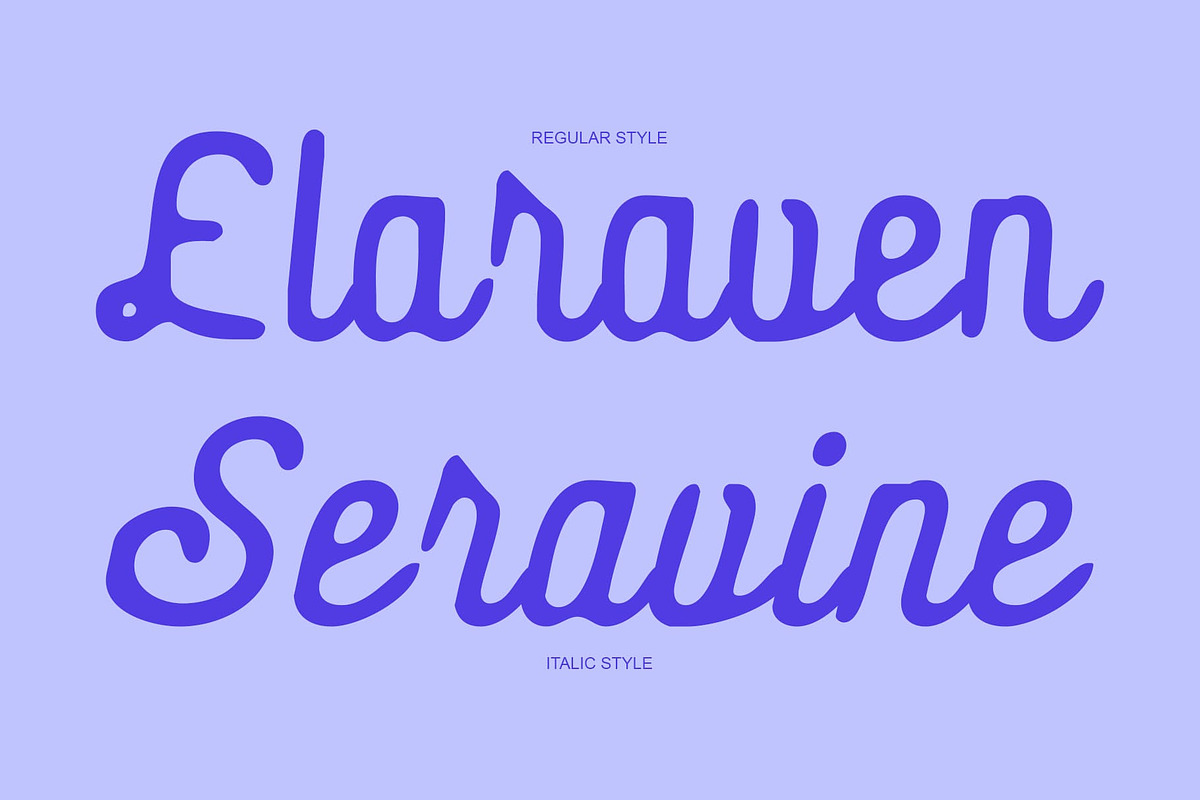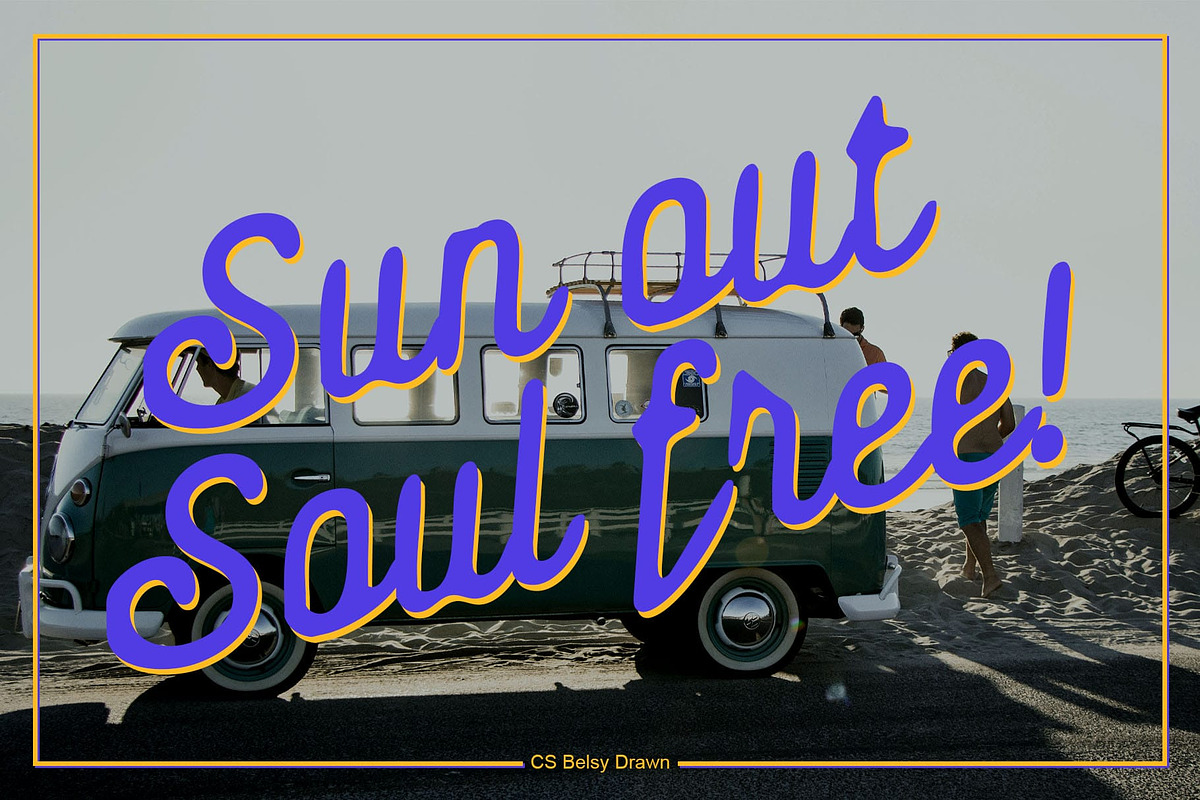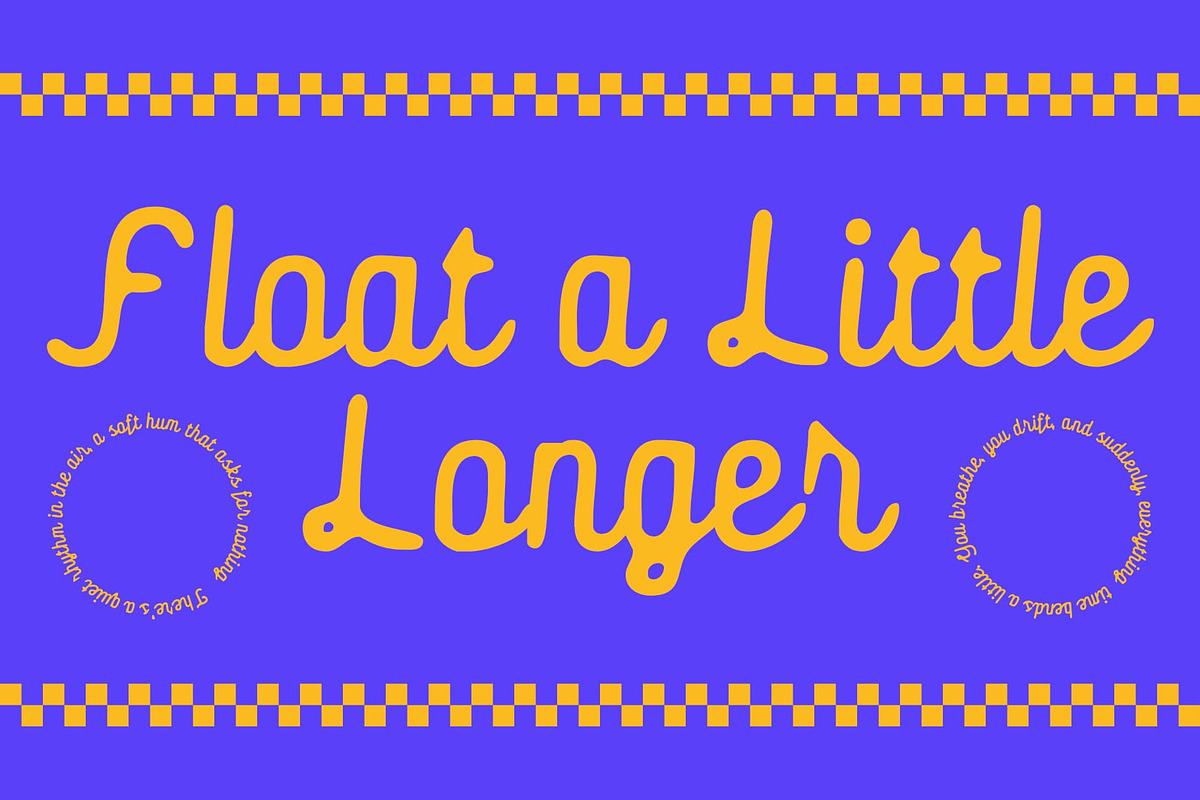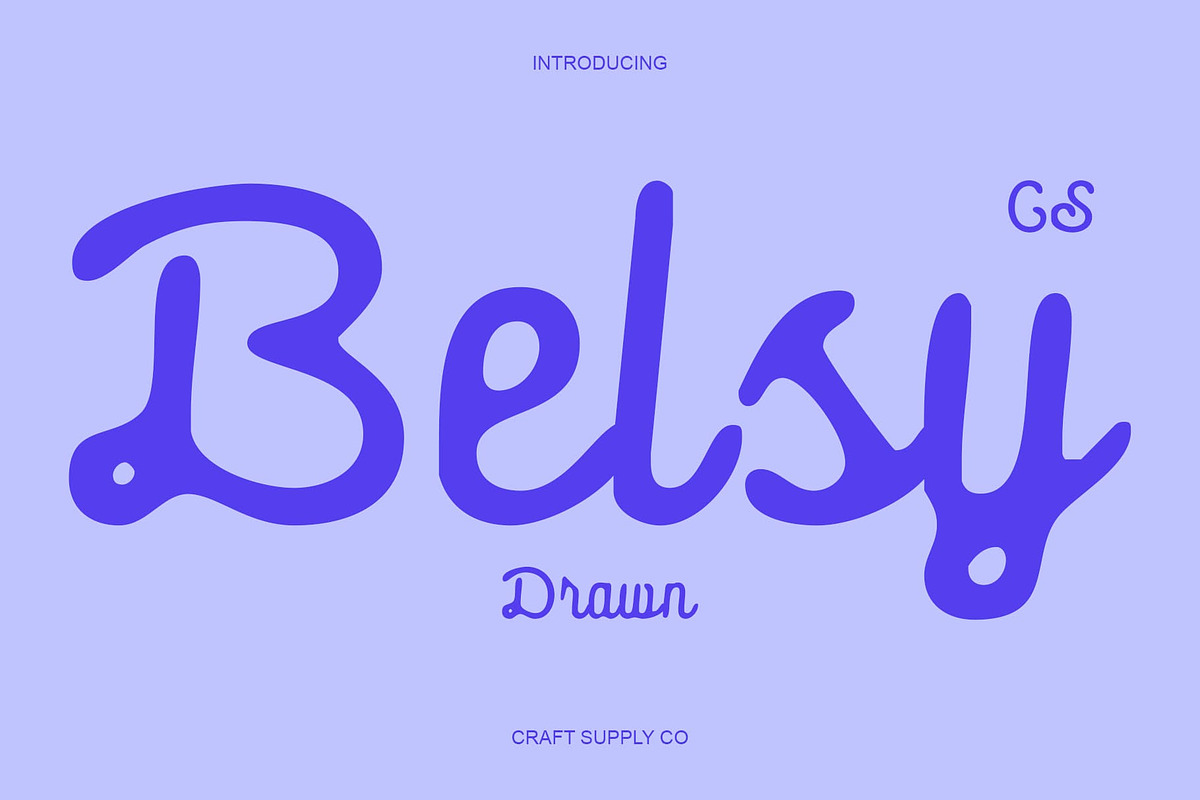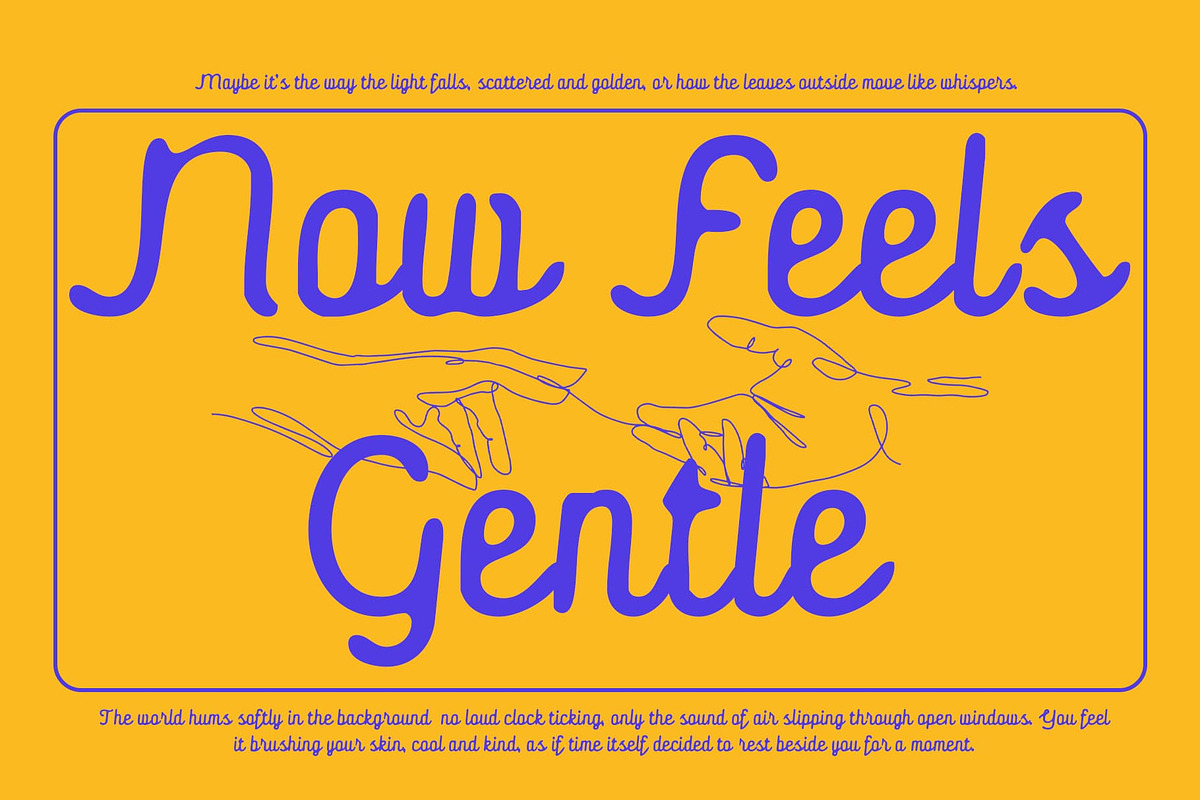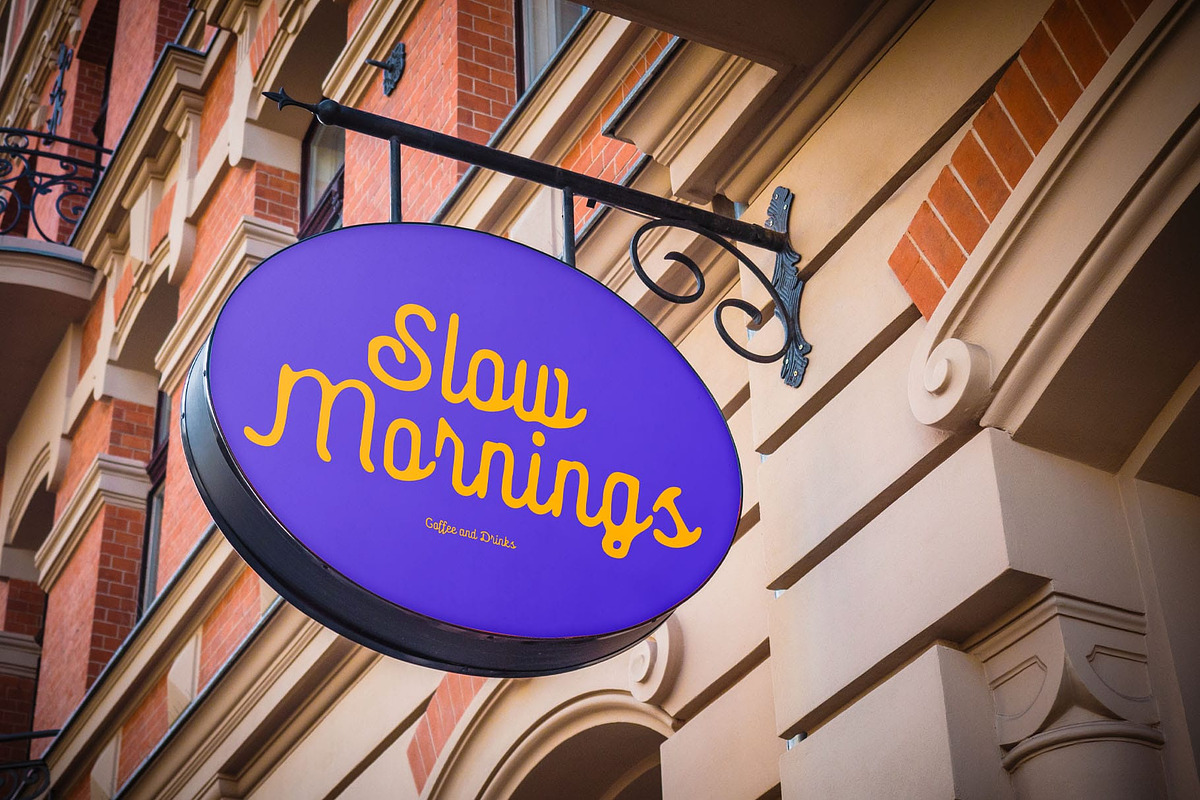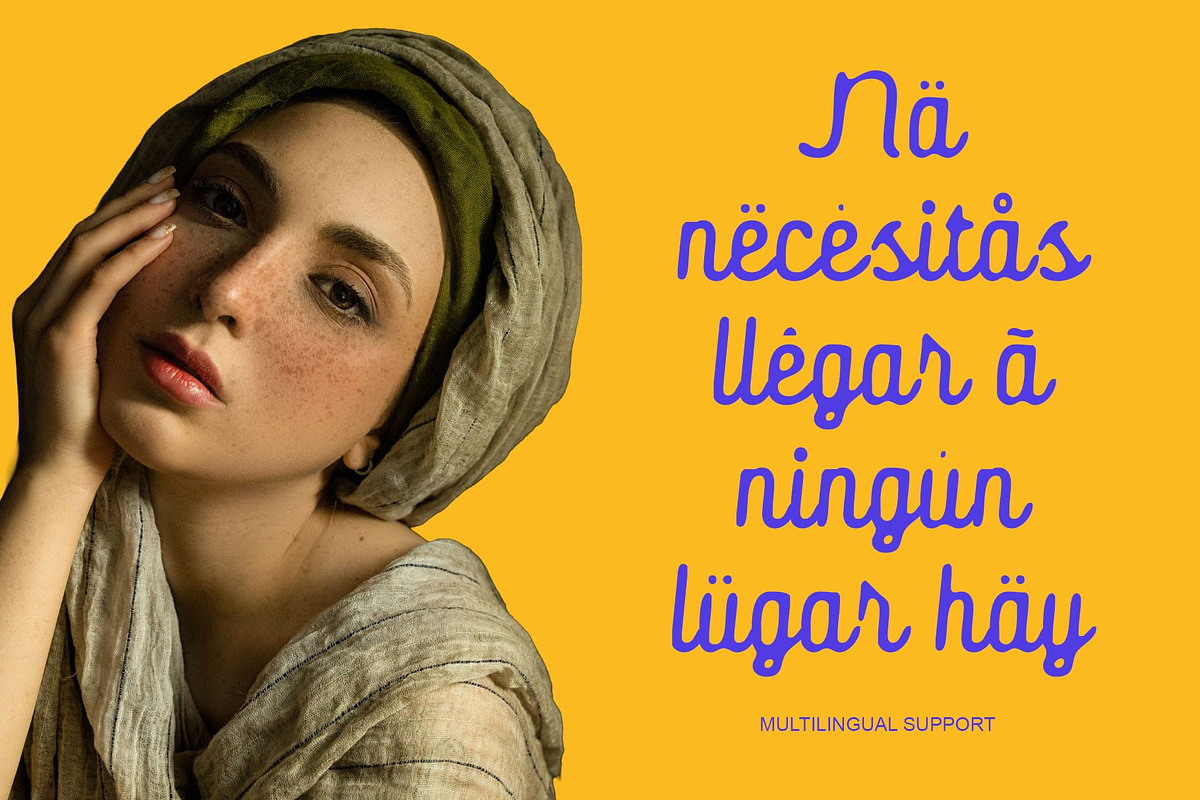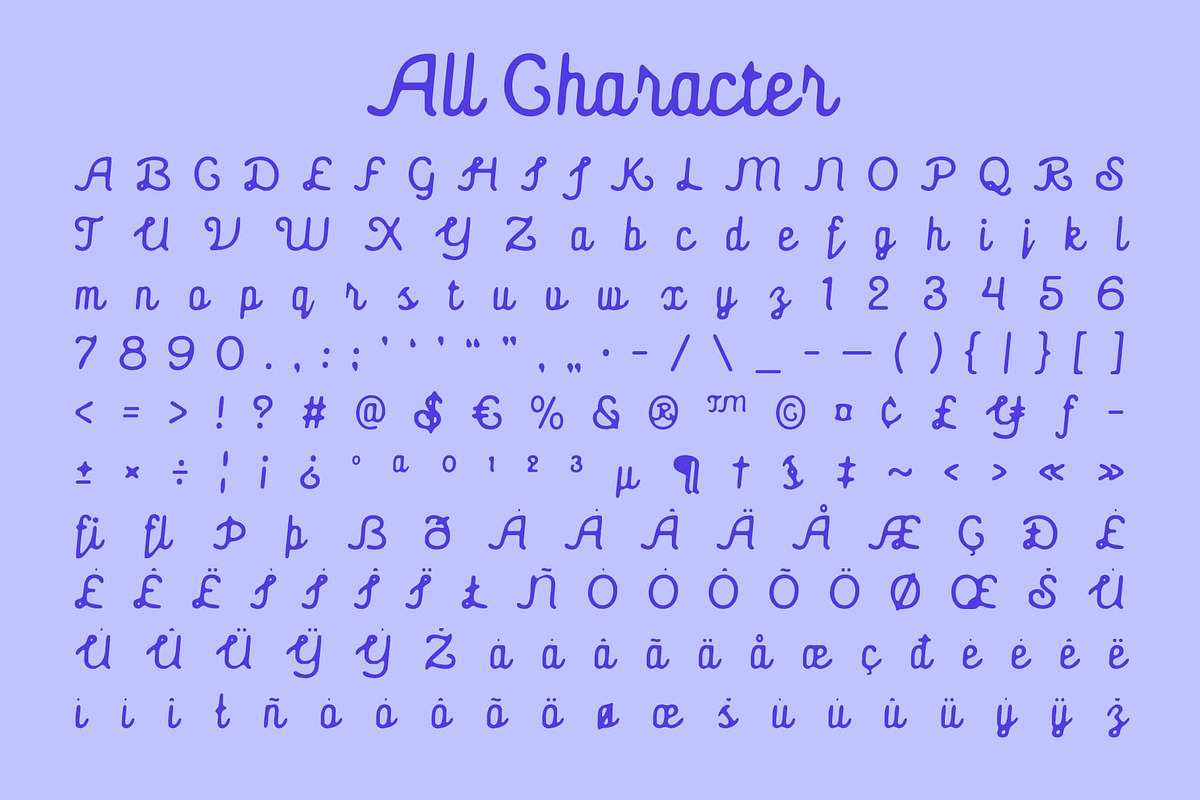
CS Belsy Drawn
CS Belsy Drawn – Classic Script Font with Drawn Texture: Vintage Elegance with a Handcrafted Touch
Timeless Style with Decorative Flourishes This is a vintage script font that radiates timeless sophistication. Its flowing curves and decorative flourishes evoke the charm of traditional penmanship, capturing the beauty of classic lettering with a touch of refinement and grace.
Hand-Drawn Texture for Unique Character The drawn effect gives the impression of ink flowing from an overflowing ballpoint pen, adding a handcrafted and organic quality. This subtle imperfection enhances its individuality, making each letter feel authentic, expressive, and full of life.
Old-Fashioned Charm with a Modern Spirit While deeply rooted in vintage aesthetics, this font carries a modern sense of artistry. Its balance of smooth strokes and textured detail makes it versatile — equally suited for nostalgic designs or fresh reinterpretations of classic style.
Perfect for Retro and Nostalgic Design Ideal for retro posters, bar menus, nostalgic branding, or creative displays, this font brings warmth, personality, and heritage to your typography. It’s a script that celebrates classic elegance while embracing the charm of handmade artistry.